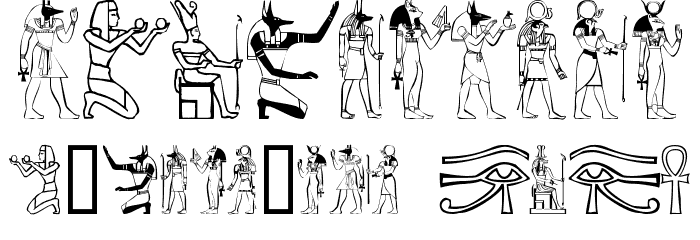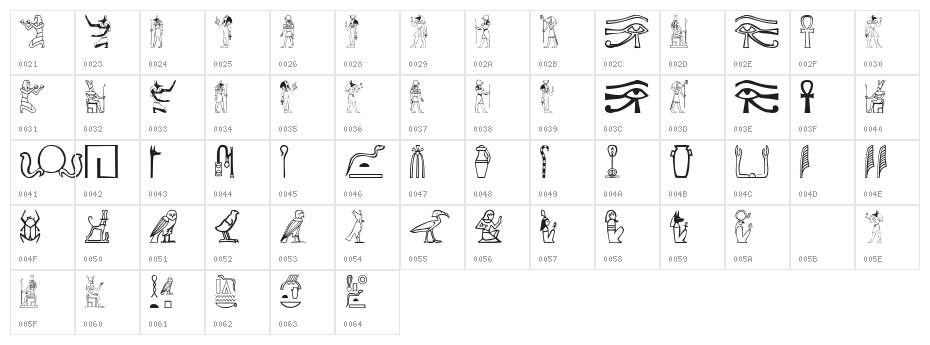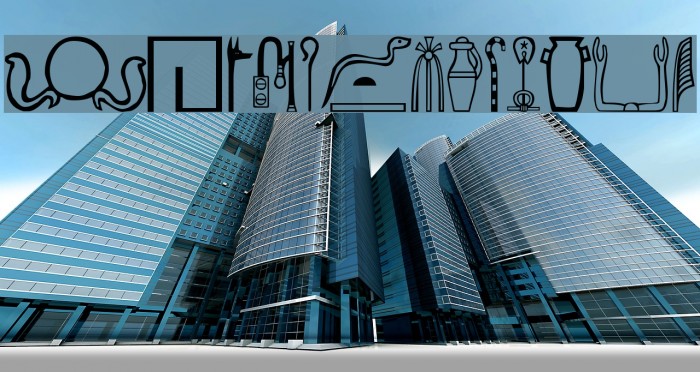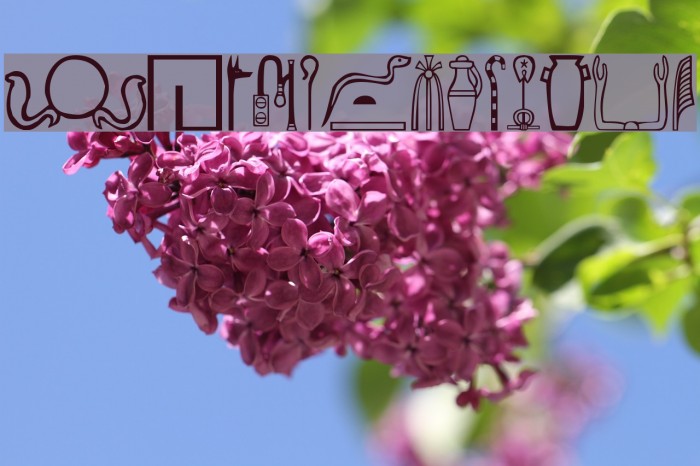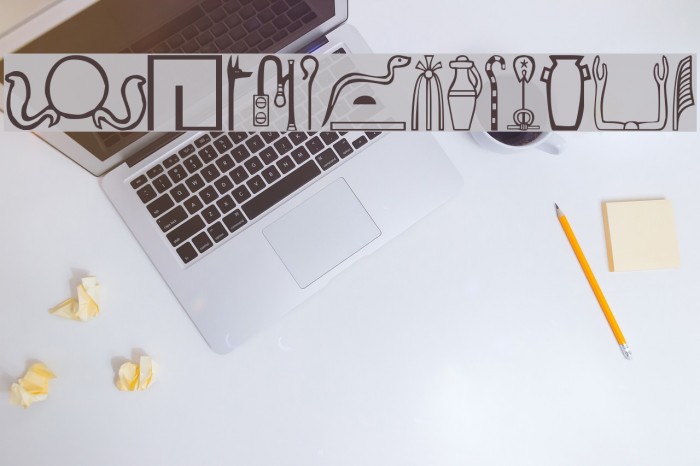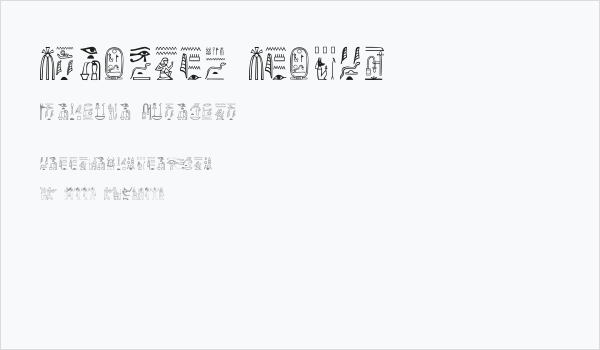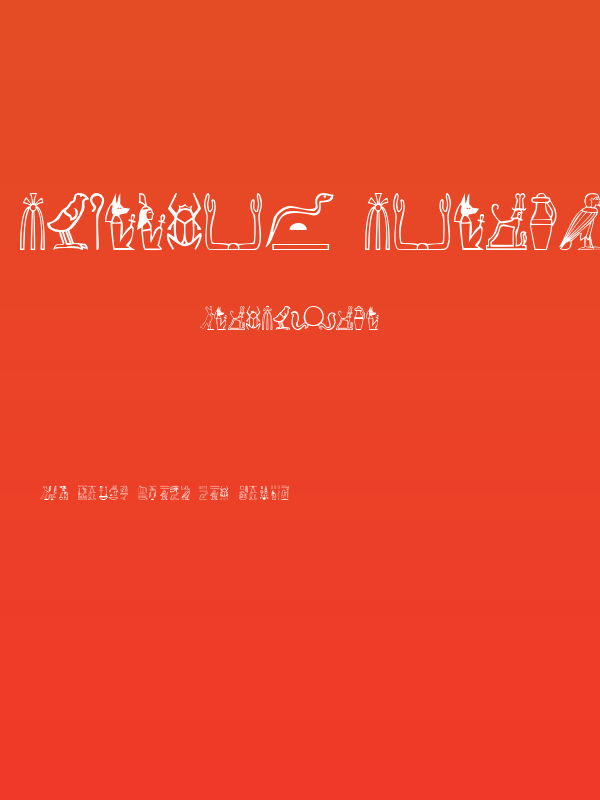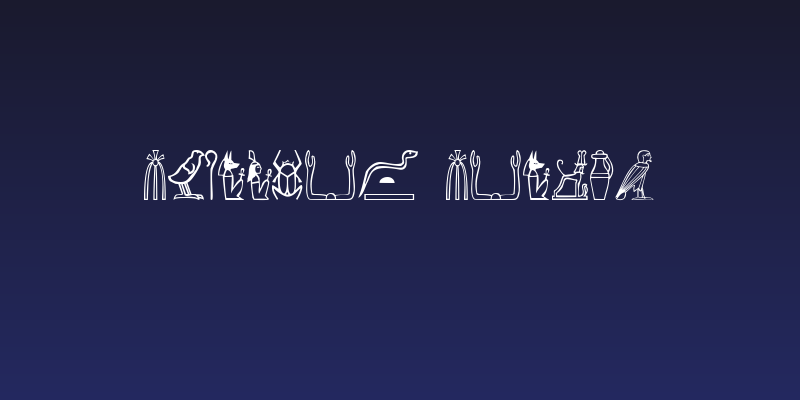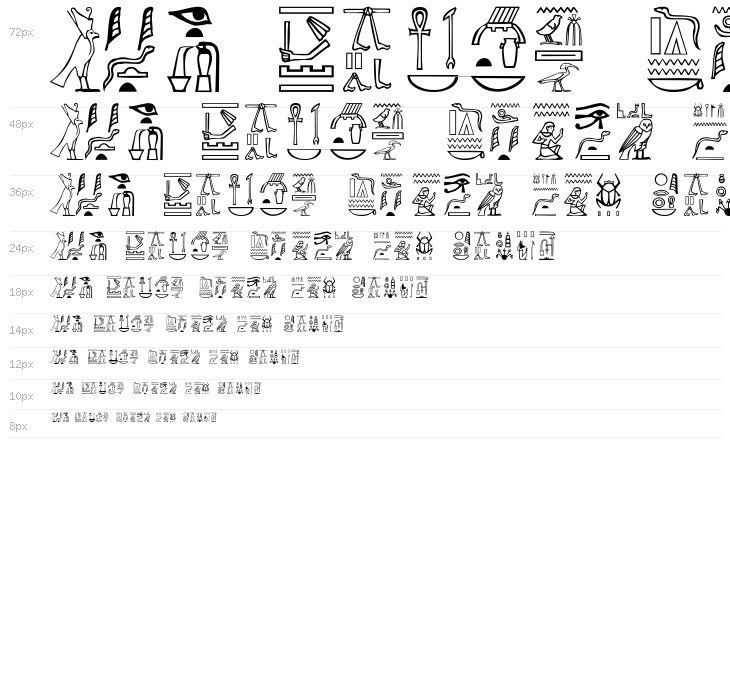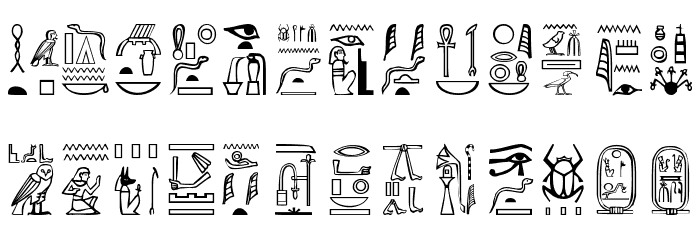
Greywolf Glyphs Font
Greywolf Glyphs Description
This set of symbols is inspired by ancient Egyptian hieroglyphs, featuring a variety of intricate and stylized characters that represent different elements of Egyptian culture and mythology. The symbols include representations of animals, gods, and everyday objects, each crafted with detailed line work and a sense of historical authenticity. The characters are designed to mimic the traditional hieroglyphic style, with a focus on vertical and horizontal alignment, creating a balanced and harmonious appearance. The overall design is both decorative and functional, suitable for projects that require a touch of ancient elegance and mystique.
| Use Case | Logos, Artistic projects, Educational materials |
| Proposed Projects | Ideal for historical or educational materials, themed event decorations, artistic projects, or branding that seeks to evoke ancient Egyptian aesthetics. |